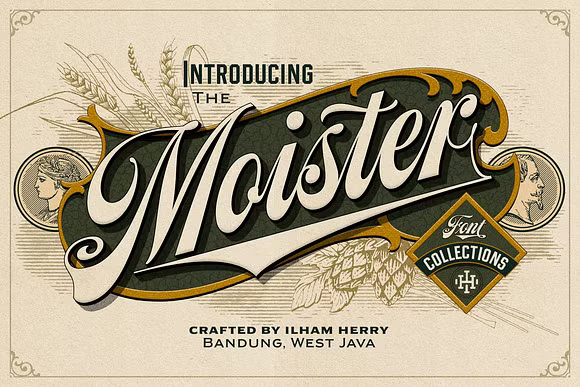
Introducing Moister Font Collection: Versatile Fonts Inspired by Vintage Beer Labels
Step back in time with the Moister Font Collection, a versatile set of fonts inspired by vintage beer labels from the old days. This collection offers four distinct styles, including scripts, blocks, and expanded regular and bold options. The Moister Font Collection is perfect for creating label designs, headlines, logotypes, signage, posters, greeting cards, letterheads, t-shirts, and much more.
Key Features of Moister Font Collection
The Moister Font Collection is designed to provide designers with a variety of styles and options for creative projects. Here are some of its standout features:
Four Unique Styles: The collection includes Moister Script, Moister Block, Moister Expanded Regular, and Moister Expanded Bold. These styles can be combined to create dynamic and eye-catching designs.
Versatile Applications: Ideal for label designs, headlines, logotypes, signage, posters, greeting cards, letterheads, t-shirts, and more, making it a versatile choice for any project.
Inspired by Vintage Beer Labels: The fonts capture the nostalgic charm of vintage beer labels, adding a touch of retro elegance to your designs.
Enhance Your Designs with Moister Font Collection
Moister Font Collection is meticulously crafted to offer designers a range of styles that evoke the charm and elegance of vintage beer labels. Whether you’re designing labels, creating logotypes, or crafting unique signage, this collection provides the versatility and style needed to make your projects stand out.